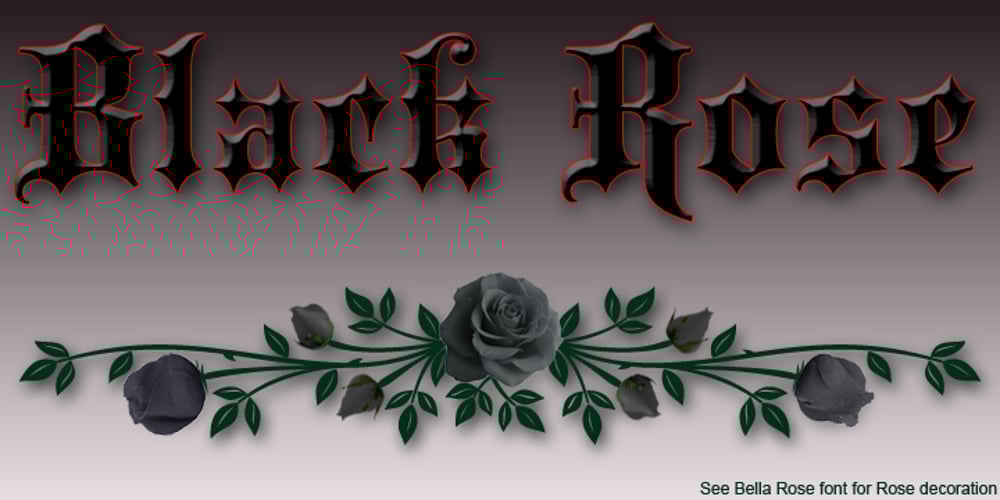
Black Rose Font Family was designed by Michael Hagemann and published by FontMesa. Black Rose contains 1 styles and family package options. Black Rose is the plain version of an old Bruce Type Foundry font called “Black Ornamented” created in 1873.